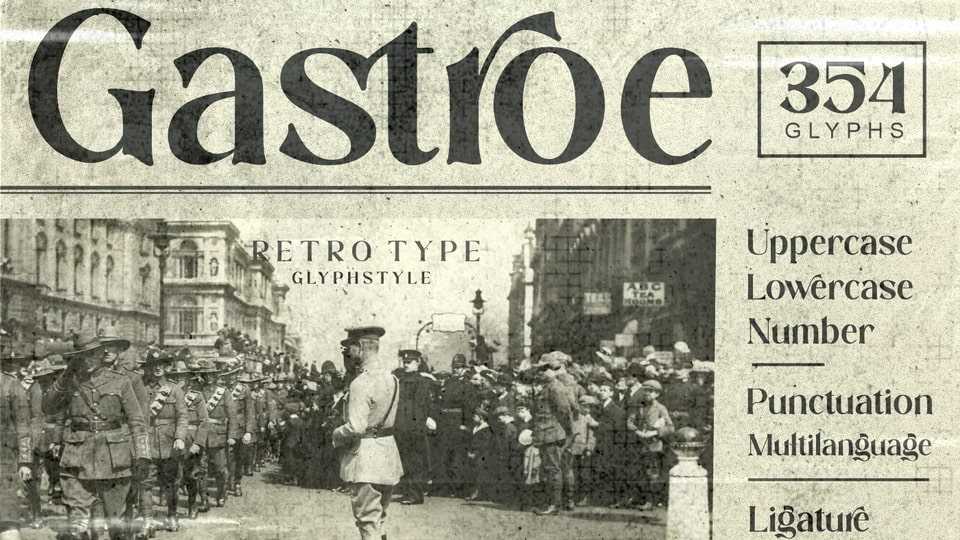
Download Gastroe font, a display typeface with a retro, old and vintage look. The font creates old feeling but still stylish with several stylistic ligatures that can be used.